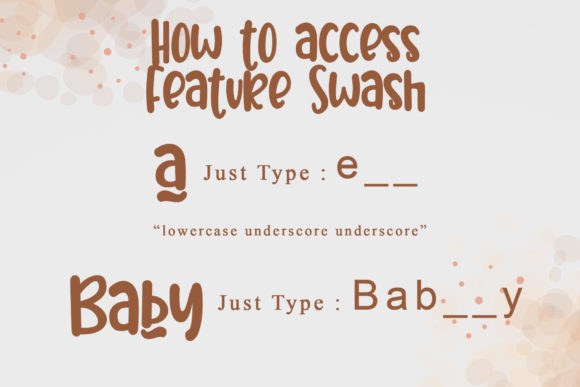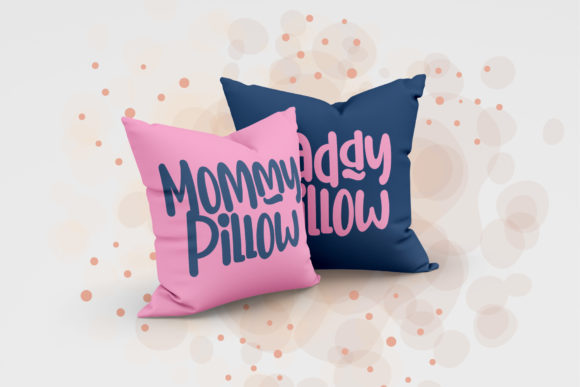
Baby Chipmunk Font
db-ku.com - Script & Handwritten -- Baby Chipmunk is a cute and sweet handwritten font, featuring a friendly feel. Get inspired by its playful style! This font is PUA encoded which means you can access all of the cute glyphs and swashes with ease!